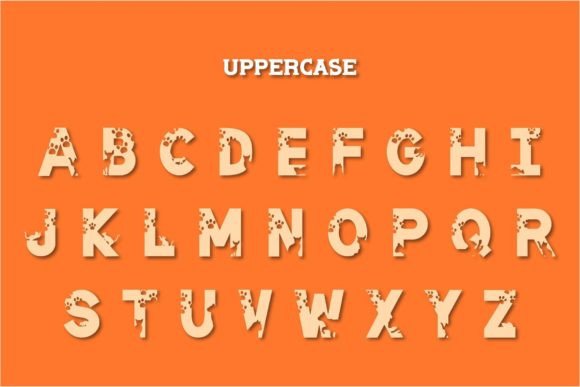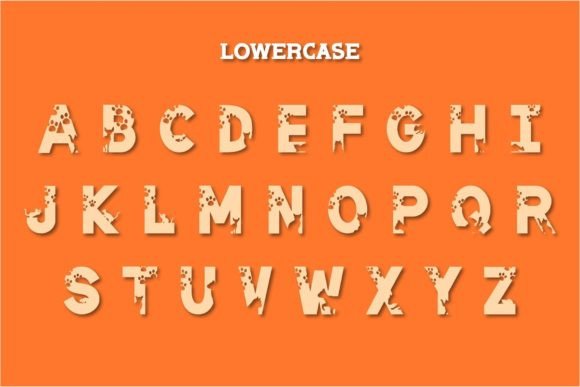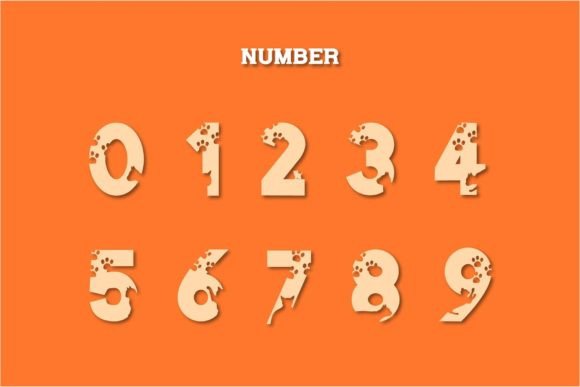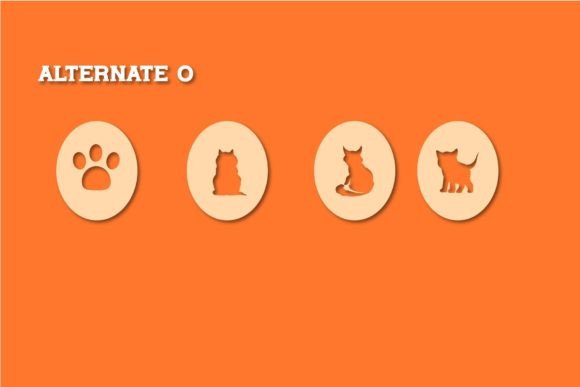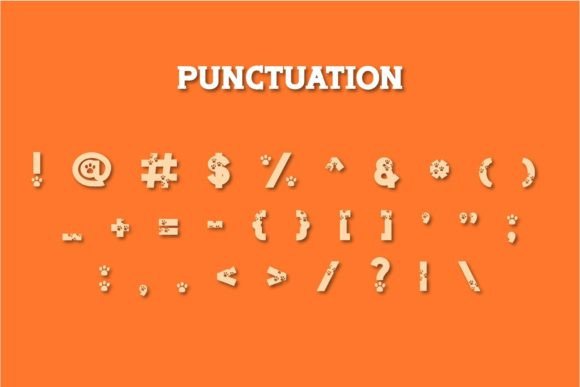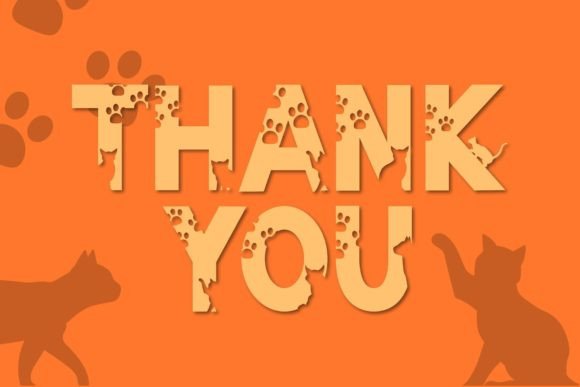
Introduction to Good Cat Font
Remember that moment when you’re working on a creative project, and you just can’t seem to find the right font to match your vision? You scroll through font libraries, trying to find that perfect combination of style and personality. For designers, it’s a challenge we all face at some point or another. But what if I told you there’s a font that can bring your designs to life and add a playful touch? Enter the Good Cat Font, a delightful and charming decorative font that’s sure to bring a smile to your face.
As a valuable design resource, the Good Cat Font is a must-have for any creative project. Whether you’re working on a blog post, a logo, or even a photo album, this font is the perfect addition to take your design to the next level. With its high-quality design and transparent background, it’s easy to integrate into any project, and the results are simply purr-fect.
Key Features of Good Cat Font
- High-quality, vector-based design for a seamless and scalable experience
- Perfect for use in logos, branding materials, and other design elements where a playful, whimsical touch is desired
- Designed with a clean and modern aesthetic, making it a great addition to any design resource
Honest Review: Good Cat Font
I recently stumbled upon the Good Cat Font while searching for a quirky design resource for a creative project. As a designer, I was excited to try out this new font and see if it would meet my expectations.
- ✨ High quality design: The Good Cat Font is well-crafted with a clear and legible font style.
- ✨ Versatile: The font comes in various styles and weights, making it perfect for a range of creative projects.
Any limitations:
- ⚠️ Limited character set: The font only includes a limited character set, which may not be suitable for all projects.
- ⚠️ Not suitable for body text: Due to its quirky design, the Good Cat Font may not be the best choice for body text.
Overall impression: I’m impressed with the Good Cat Font’s unique design and versatility. While it may have some limitations, it’s a great addition to any designer’s toolkit, especially for creative projects that require a quirky touch.
The Good Cat Font is perfect for social media graphics, blog posts, and other creative projects. You can use it to add a touch of whimsy and personality to your designs.
What makes the Good Cat Font a high-quality design resource?
The Good Cat Font is designed to be a high-quality design resource, offering a unique and creative look for your projects. Its high-quality design and transparent background make it easy to use and customize in various design applications. Whether you’re working on a logo design or a branding project, the Good Cat Font is an excellent choice for designers seeking a distinctive and eye-catching font.